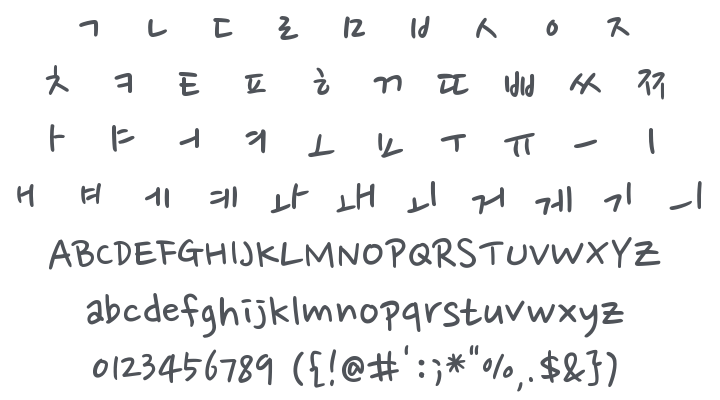
Nanum Pen Script Font
by Sandoll Communication
Nanum Pen Script Font
About Nanum Pen Script
The Nanum fonts (Korean : 나눔글꼴) are unicode fonts designed especially for the Korean-language script, designed by Sandoll Communications (Korean : 산돌 커뮤니케이션) and Fontrix (Korean : 폰트릭스). The publisher is Naver. Nanum Pen Script is a contemporary pen script with a warm touch and is expertly hinted for screen use.